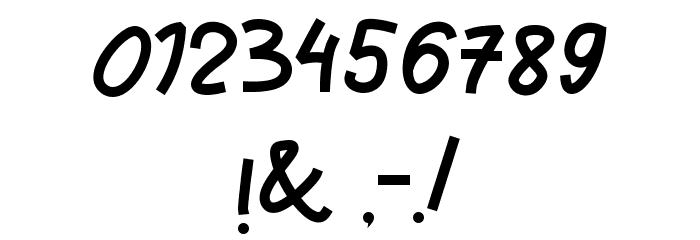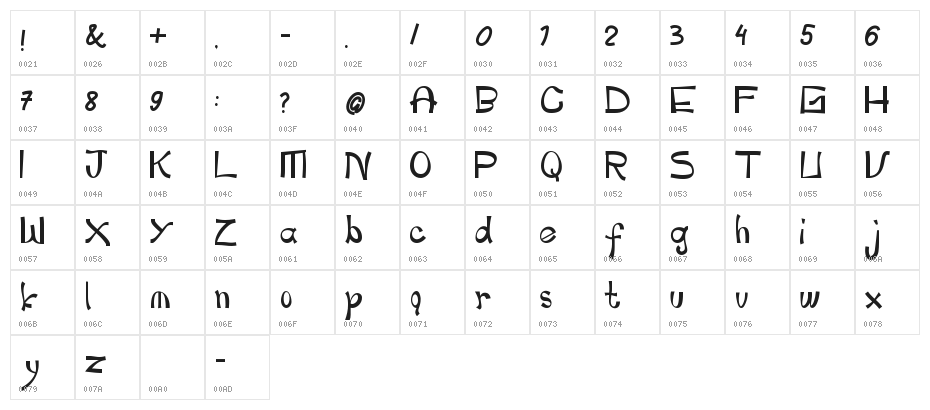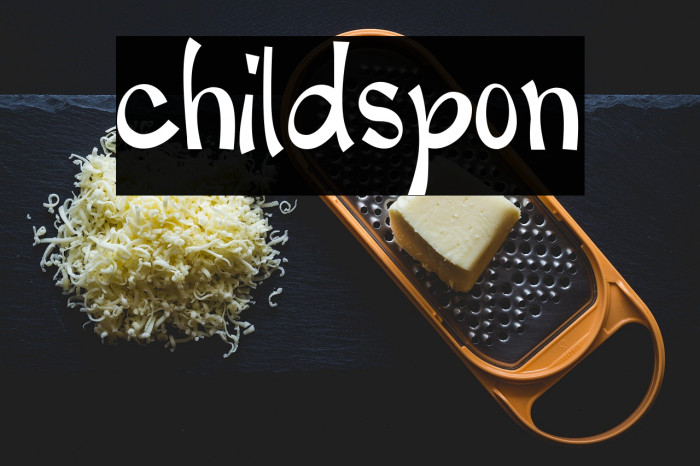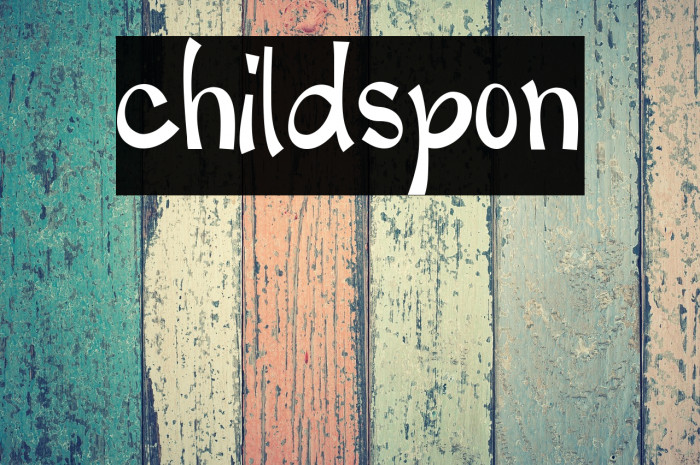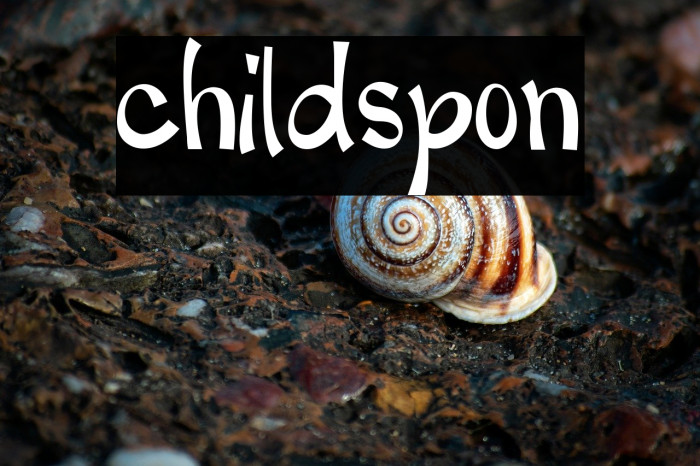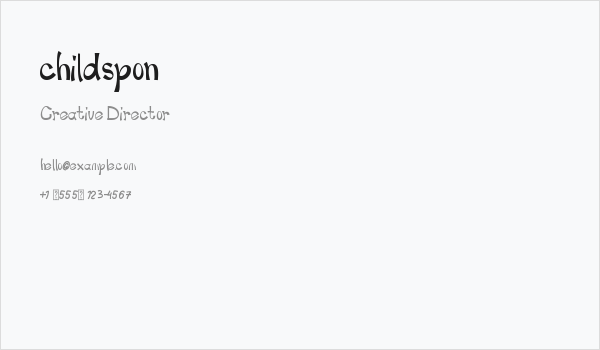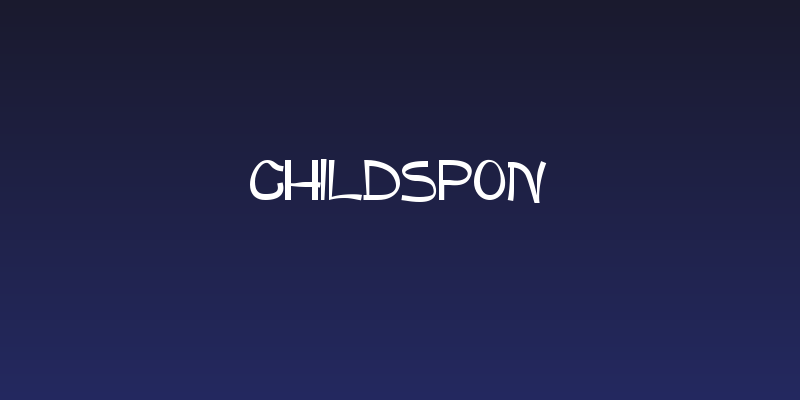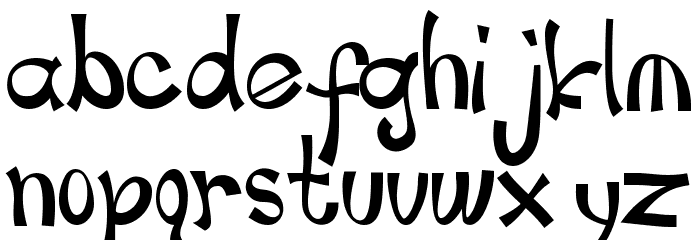
childspon Font
childspon Description
This playful and whimsical font features a unique blend of curves and angles, giving it a childlike, handwritten appearance. The uppercase letters are bold and slightly irregular, with a quirky charm that adds personality to any text. The lowercase letters maintain this playful style, with some characters featuring exaggerated loops and strokes. Numbers and special characters are consistent with the overall style, making the font versatile for various uses. Its distinctiveness makes it ideal for projects that require a fun and informal touch.
| Proposed Projects | Ideal for children's books, playful branding, party invitations, and educational materials. |